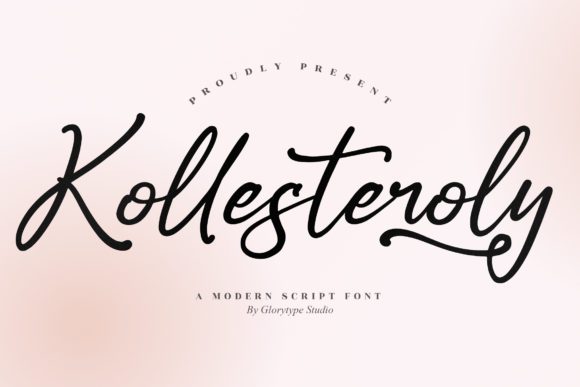
Behold, the Kollesteroly Script Font – a beautifully crafted, modern script font that's sure to add a touch of elegance and sophistication to your creative projects. With its flowing, graceful curves and captivating lines, this font exudes a sense of charm and allure that's sure to leave a lasting impression.
Step into the world of Kollesteroly Script Font and embark on a typographical adventure like never before. Discover the endless possibilities it holds for transforming your logos, branding projects, homeware designs, product packaging, mugs, quotes, posters, shopping bags, t-shirts, book covers, name cards, invitation cards, greeting cards, labels, photography, watermarks, special events, and all your other beloved projects.
With the Kollesteroly Script Font, your creativity knows no bounds. Its versatility allows you to effortlessly create stunning visuals that convey your unique style and vision. Whether you're a seasoned designer or just starting, the Kollesteroly Script Font is the perfect tool to elevate your work to new heights.
So, let your imagination run wild and embrace the limitless potential of the Kollesteroly Script Font. Dive into a world of endless creative possibilities and watch your projects come to life with a touch of elegance and charm.